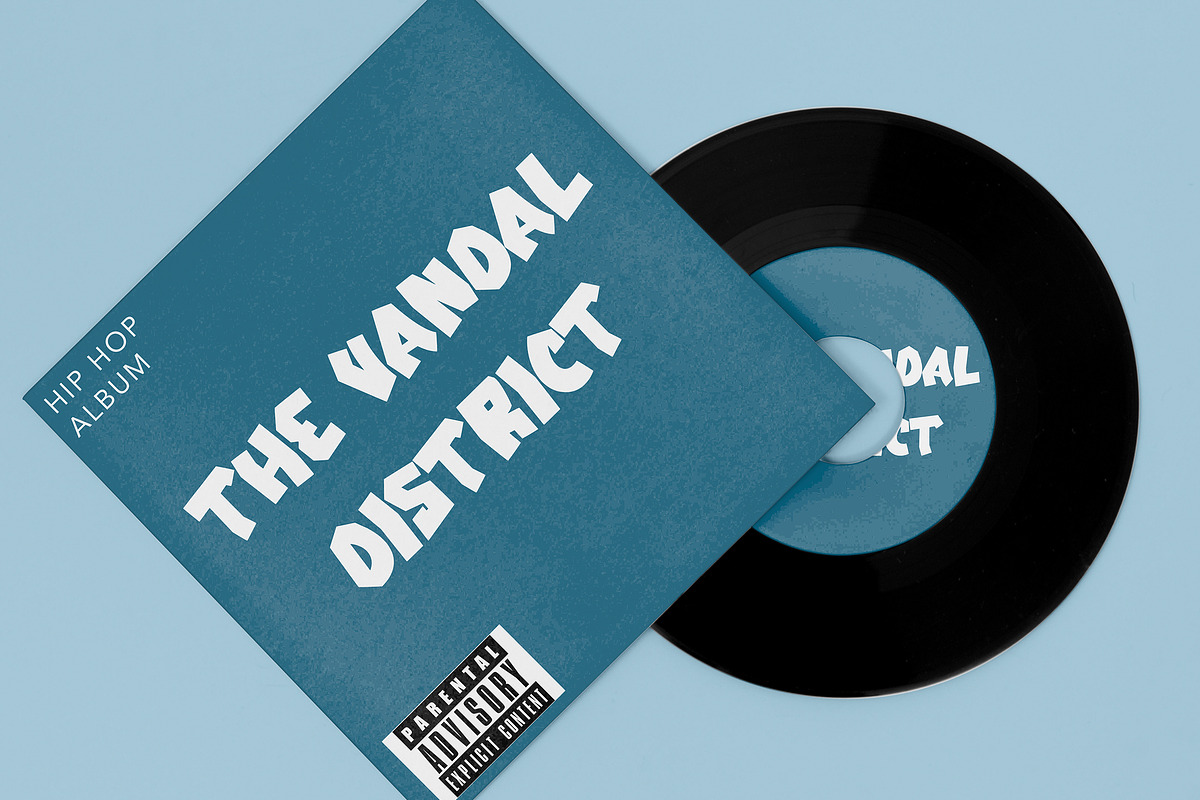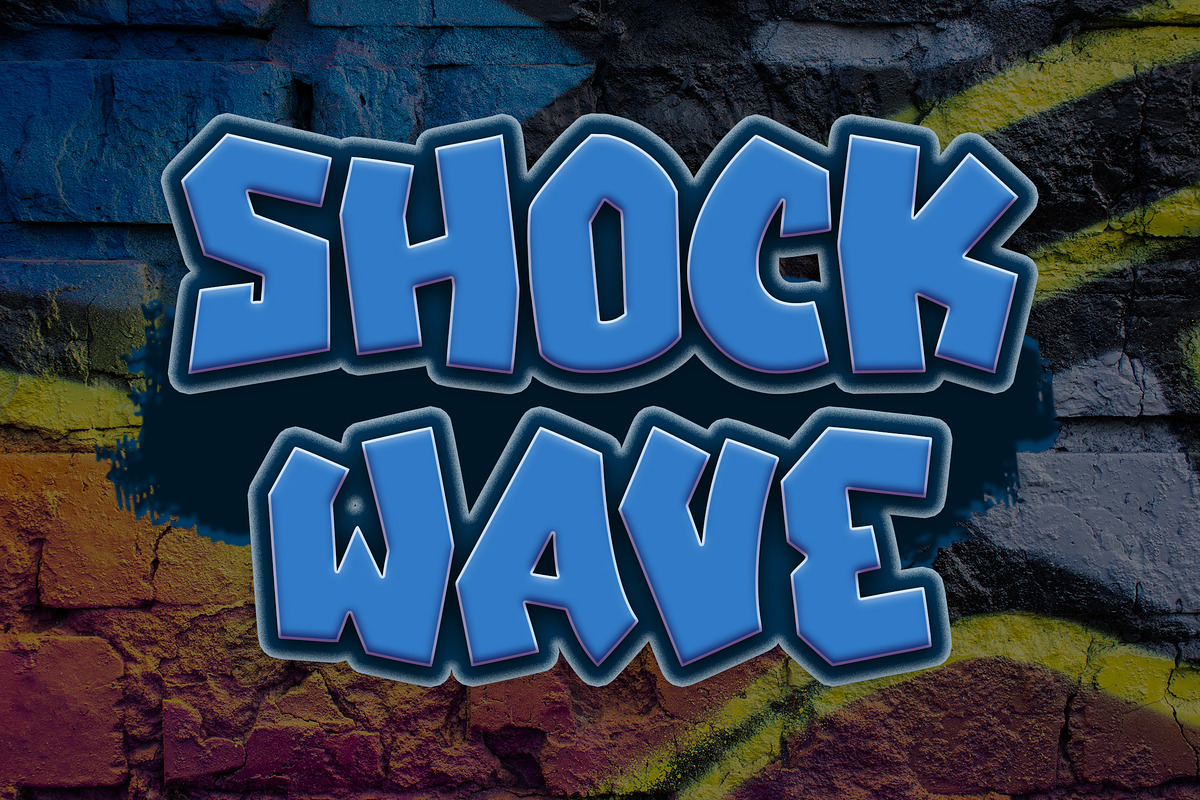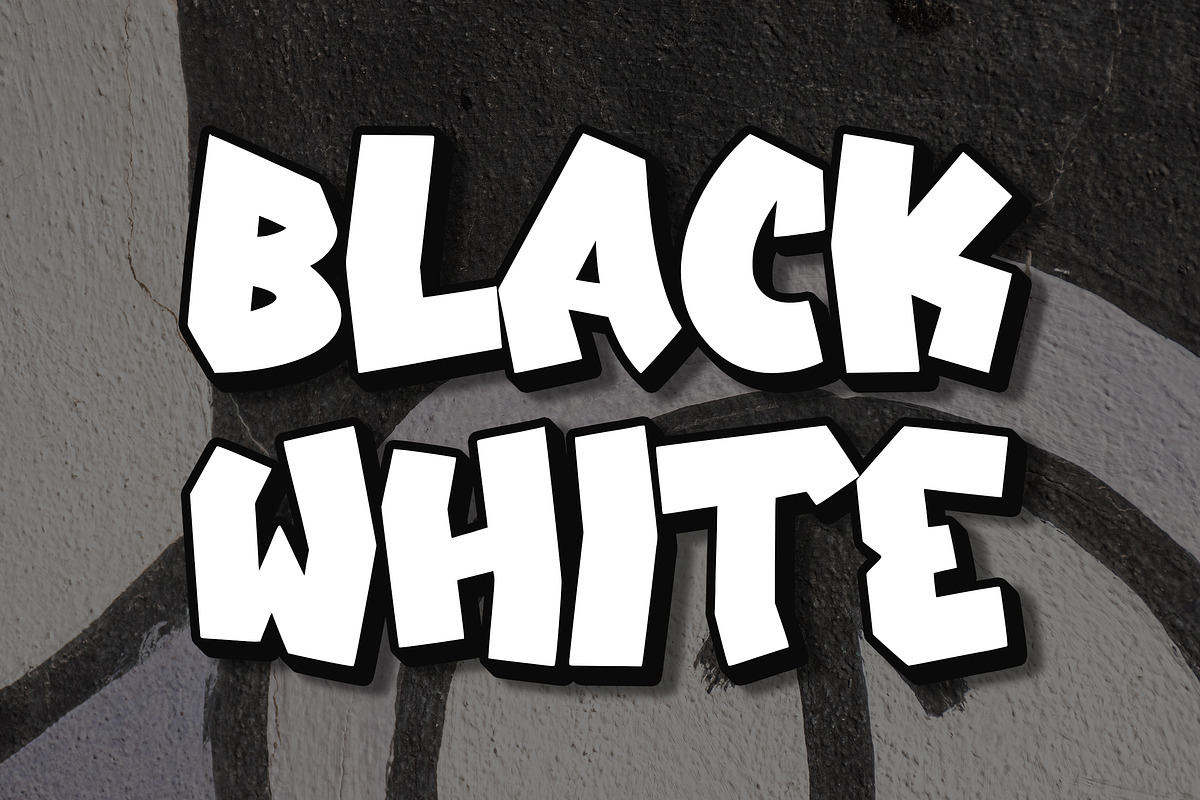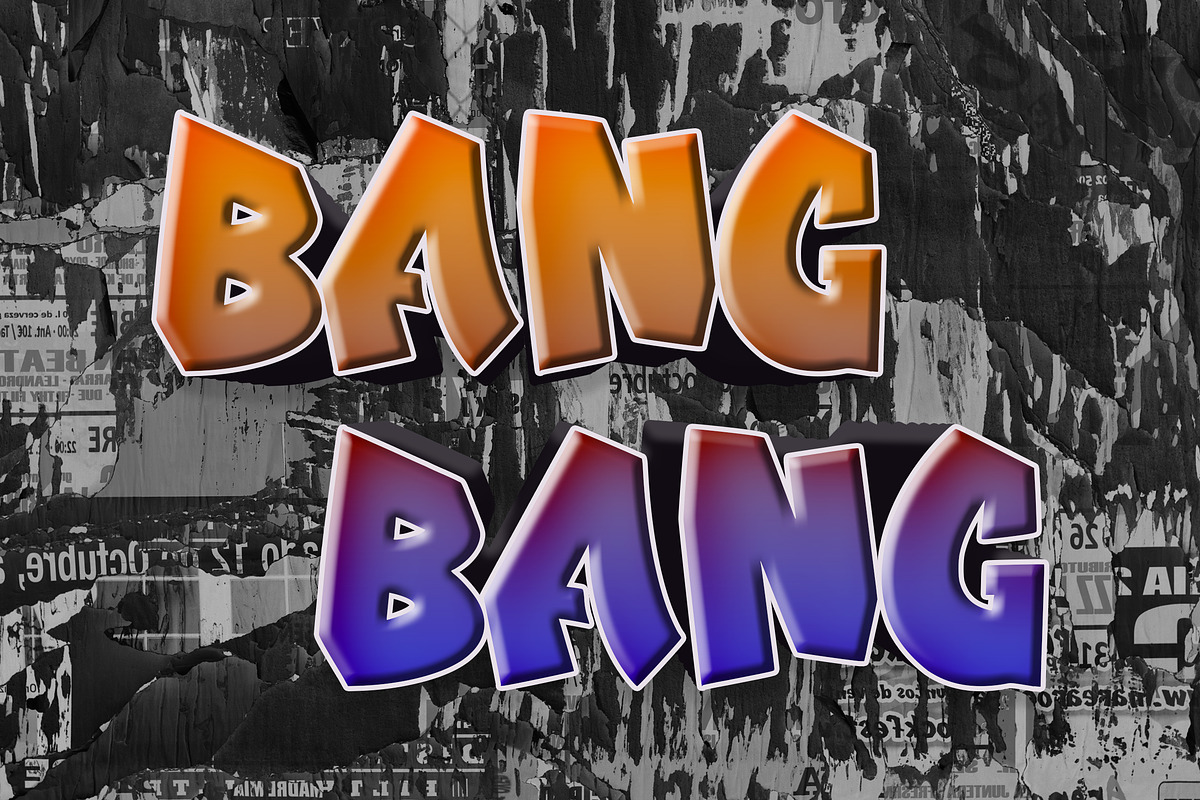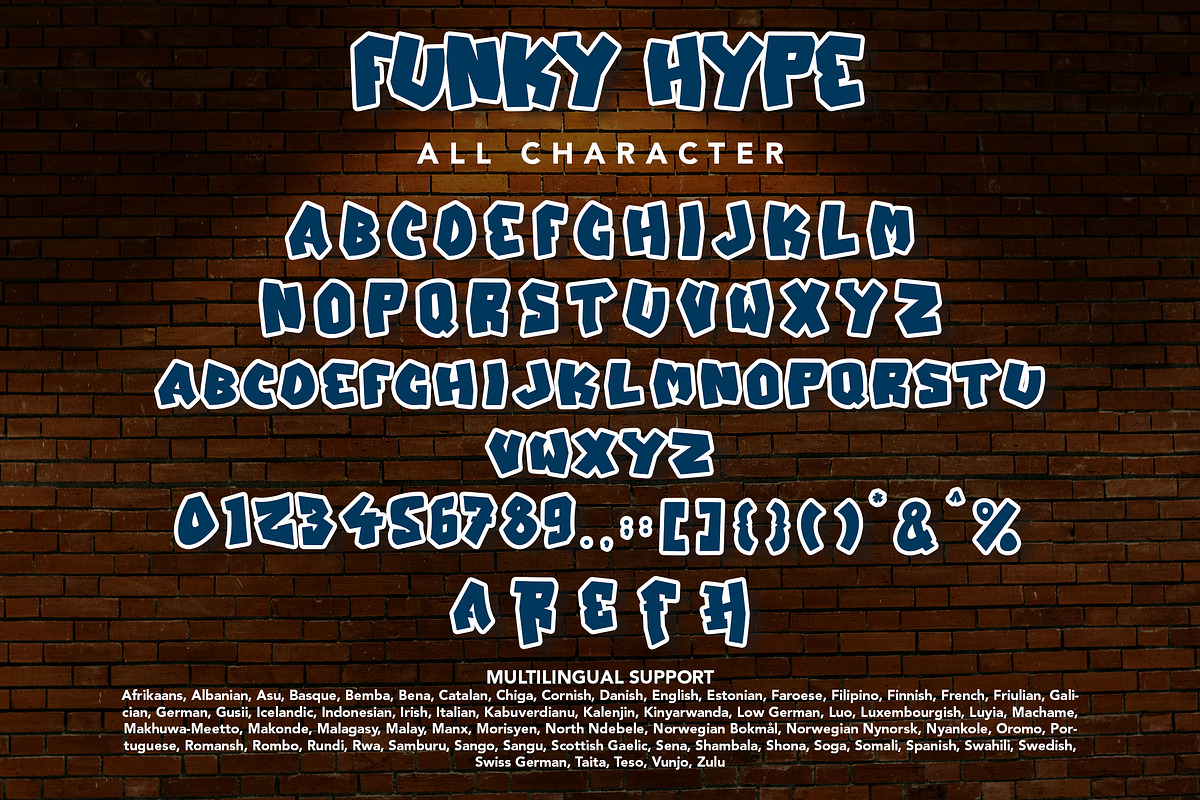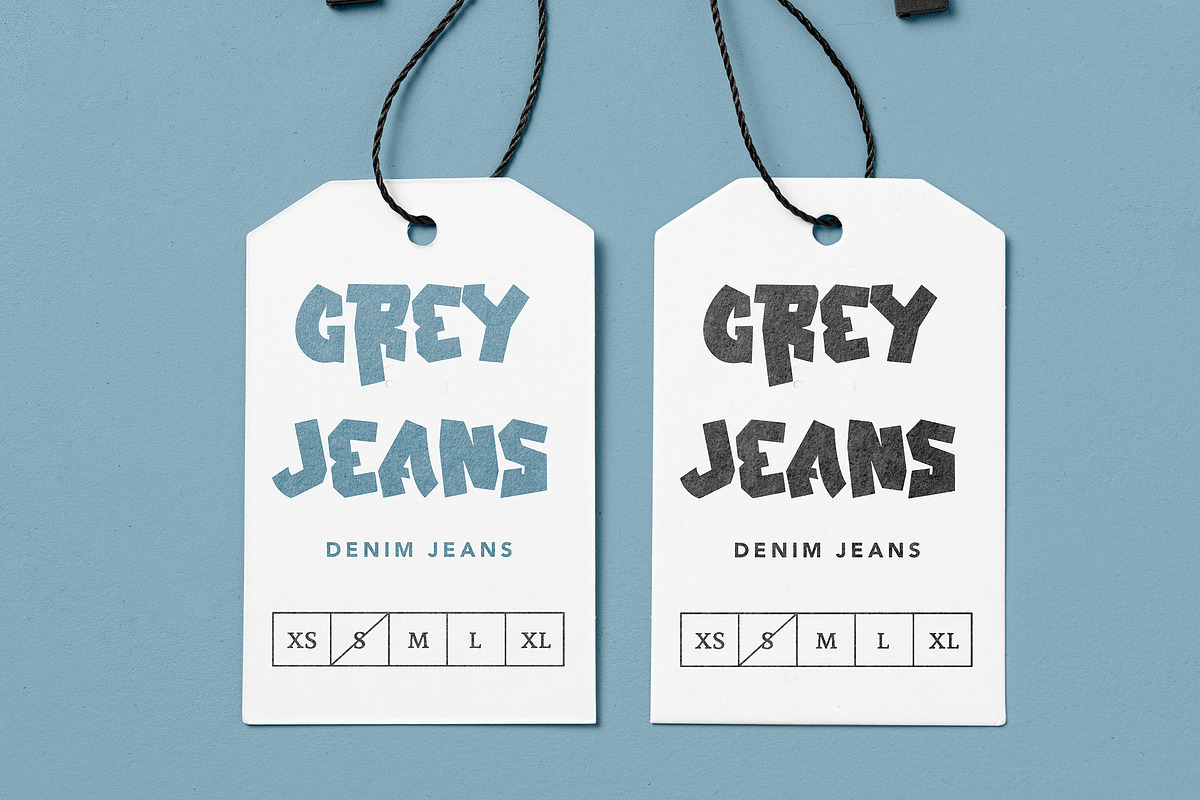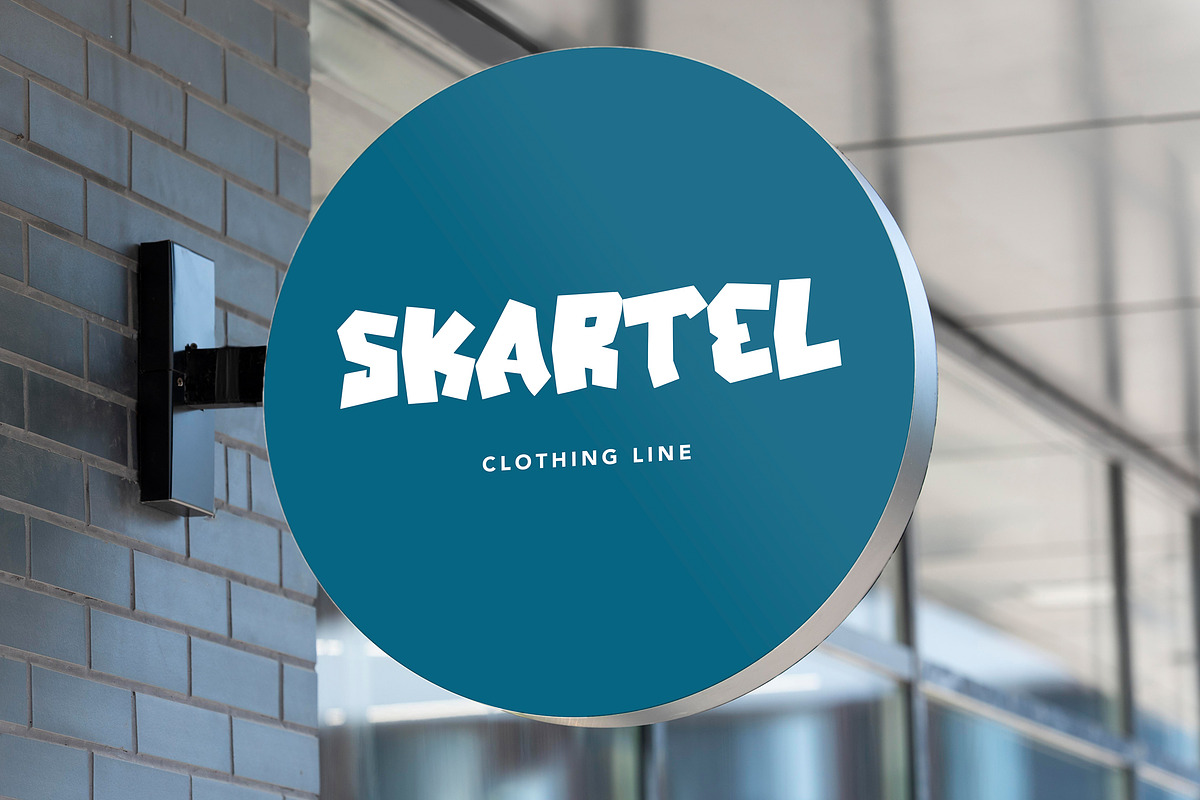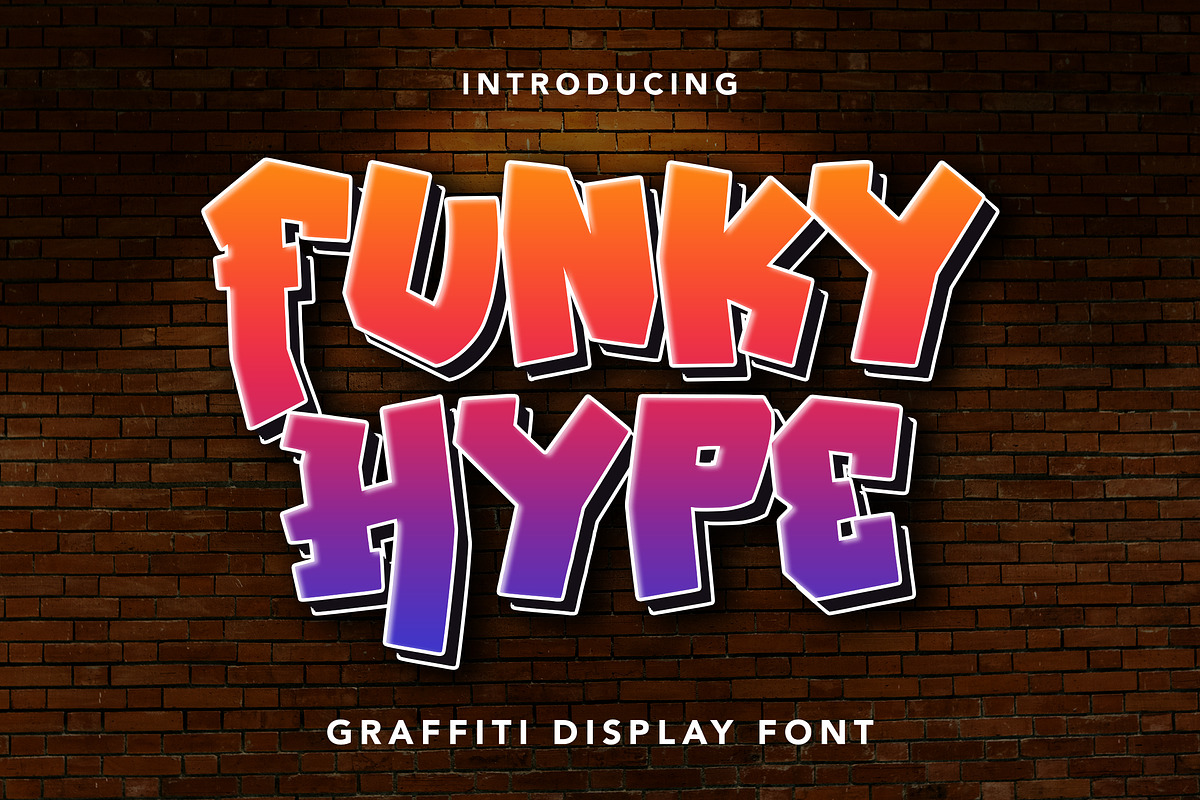
Funky Hype
A graffiti display font with free style font that has the characteristics of street art that shows freedom and is filled with unique characters.